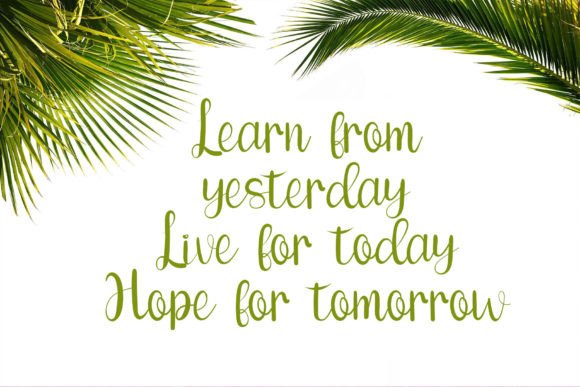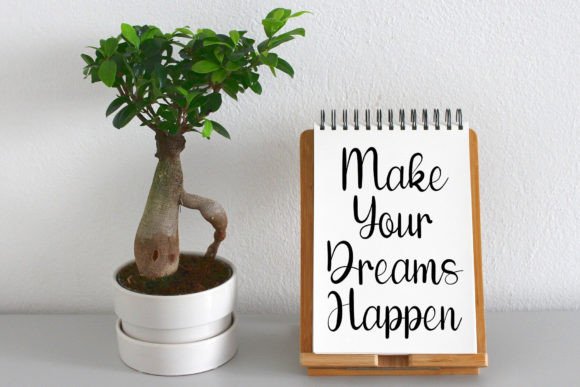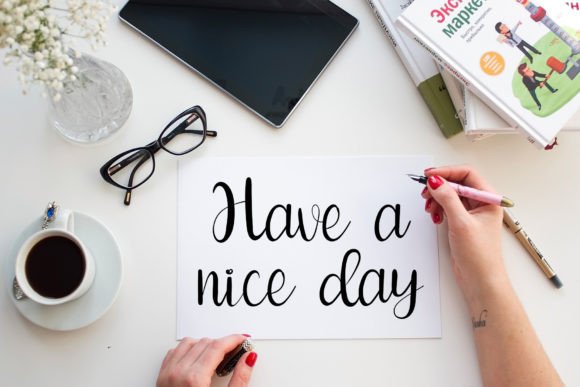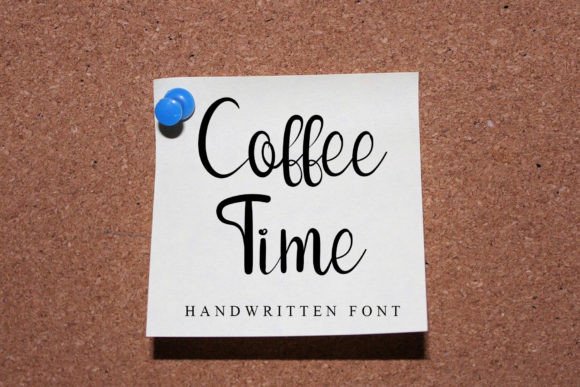
Unleash the Magic of Beautiful Typography
As a designer, there’s nothing quite like the thrill of bringing a concept to life. You’ve poured your heart and soul into a project, and it’s finally time to add the finishing touches. But what if you could take it to the next level, infusing it with a unique, handmade feel that sets it apart from the rest?
| 📌 Product Name | Beautiful Martina Font |
| 👤 Author | GiaLetter |
Enter Beautiful Martina Font, a stunning addition to any designer’s toolkit. This elegant font is perfect for wedding invitations, greeting cards, billboards, logos, and business cards, adding a tailored, handwritten feel that’s sure to impress. With its varied baseline and natural, handmade approach, Beautiful Martina Font brings a touch of realism to your designs, making it a valuable asset for any designer looking to add a little extra magic to their creations.
Beautiful Martina Font Key Features
- Font Type: Script Font
- Unique Characteristics: Elegant, cursive, and flowing script style, ideal for creative and artistic designs.
Beautiful Martina Font Review
✨ The Beautiful Martina Font has a lovely, elegant touch to it. The curves and flourishes give it a sophisticated feel that’s perfect for high-end branding or luxury products. The font is also highly legible, making it a great choice for body text.
✨ I also appreciate the wide range of language support offered by the Beautiful Martina Font. It’s available in over 200 languages, making it a versatile option for global brands.
- ⚠️ The Beautiful Martina Font is a script font, which means it may not be as readable in certain situations, such as on small screens or in very small text sizes.
- ⚠️ The font’s ornate nature can make it feel overwhelming if used in excess. It’s best to use it sparingly to add a touch of elegance.
Overall, the Beautiful Martina Font is a beautiful and sophisticated choice for those looking to add a touch of luxury to their brand. However, it’s not without its limitations, and users should be aware of its potential drawbacks before making a decision.
Getting the Most Out of Beautiful Martina Font
To get the most out of Beautiful Martina Font, consider the following tips:
– Use it for titles and headings to add a touch of elegance.
– Pair it with a sans-serif font for body text to create a visually appealing contrast.
– Experiment with different font sizes and styles to create a unique look.
Beautiful Martina Font is ideal for:
– Luxury brand logos and marketing materials
– High-end fashion and beauty branding
Alternatives to “Beautiful Martina Font” for Designers
Playfair Display is an elegant, high-end serif font ideal for luxury brands, invitations, and special occasions. It features intricate details and a classic feel. Compared to Beautiful Martina Font, Playfair Display is more formal and sophisticated, while Martina has a softer, more feminine touch.
Great Vibes is a modern, elegant script font perfect for creating a sense of luxury and sophistication. It’s ideal for branding, packaging, and advertising. Compared to Beautiful Martina Font, Great Vibes has a more contemporary feel and is better suited for digital applications.
Carolyna Pro is a high-end, elegant script font ideal for luxury brands, invitations, and special occasions. It features intricate details and a classic feel. Compared to Beautiful Martina Font, Carolyna Pro has a more refined and sophisticated look, while Martina has a softer, more playful touch.
Alex Brush is a beautiful, elegant script font perfect for creating a sense of luxury and sophistication. It’s ideal for branding, packaging, and advertising. Compared to Beautiful Martina Font, Alex Brush has a more refined and delicate look, while Martina has a softer, more playful touch.